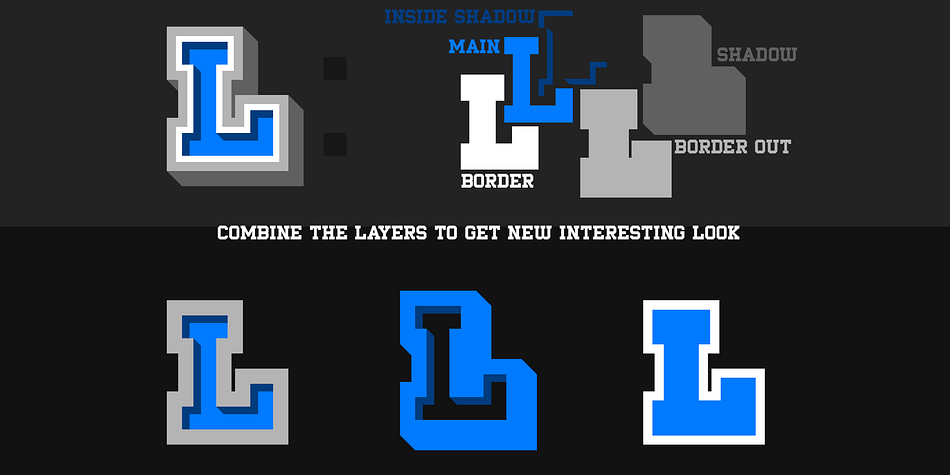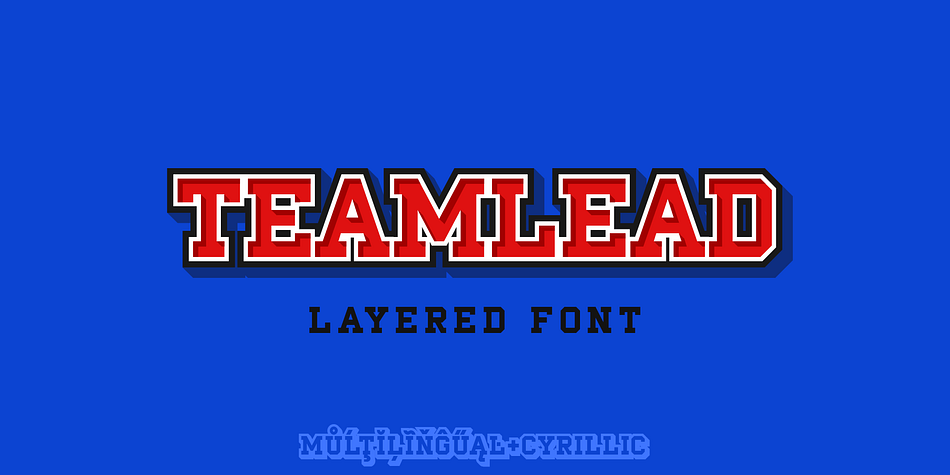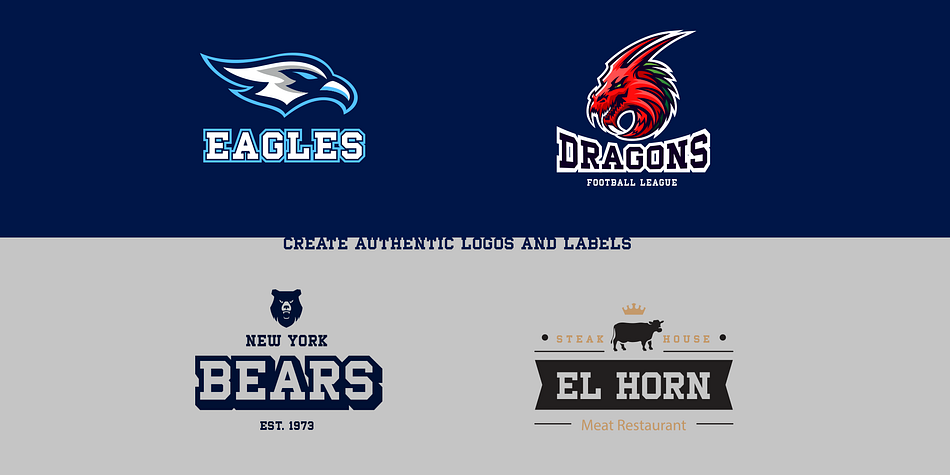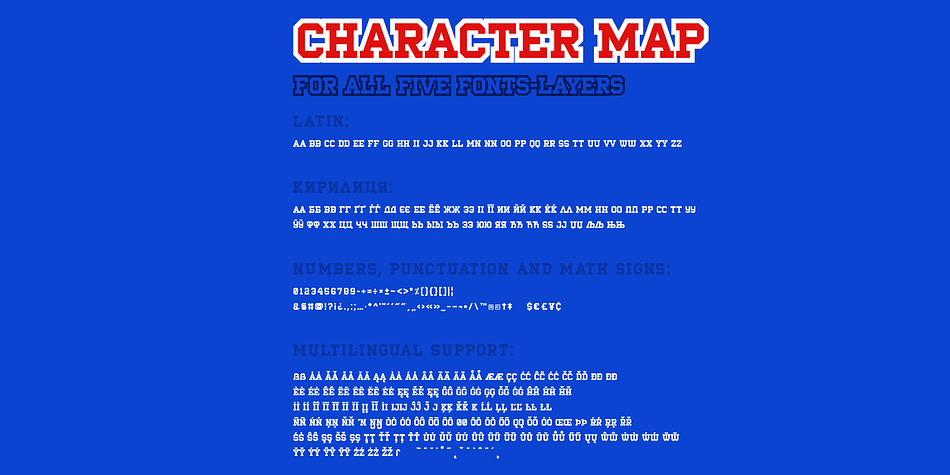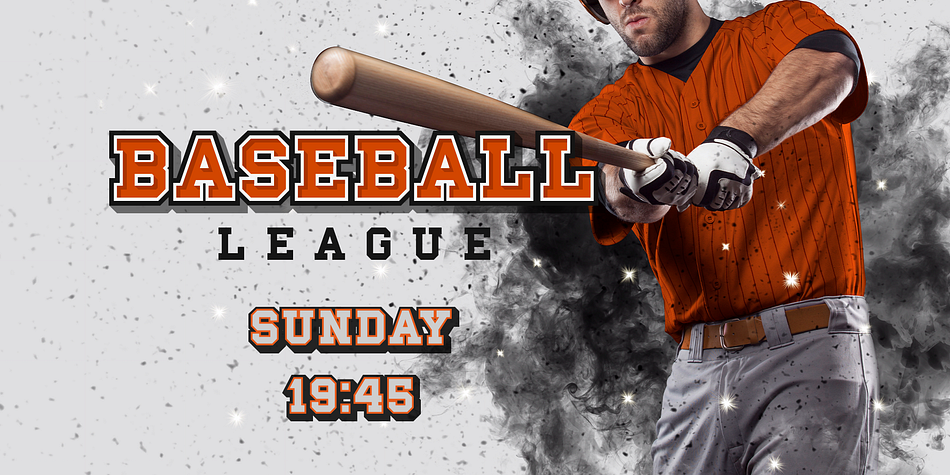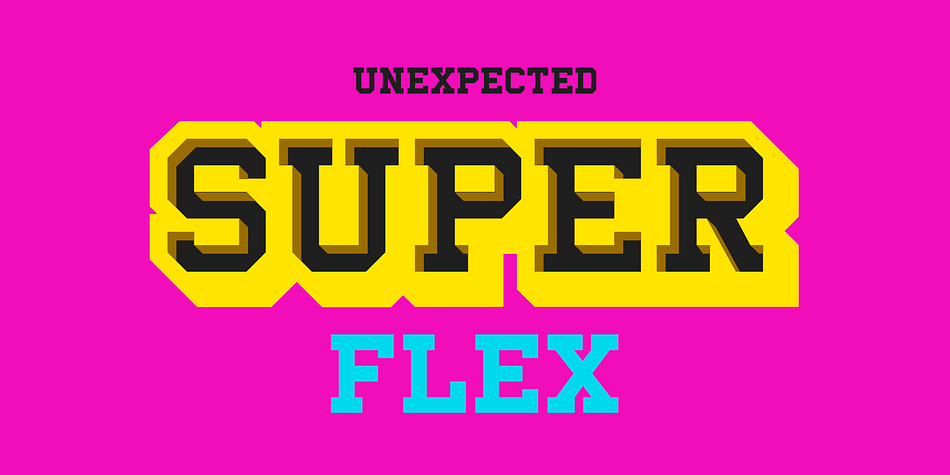
TeamLead Layered Font
TeamLead Layered Font is a display serif font family. This typeface has five styles and was published by Sentavio.
TeamLead is an authentic sports branding font of Five Layers (see the preview image #3). It is perfect for sports logos, posters, apparel design, labels and much more.